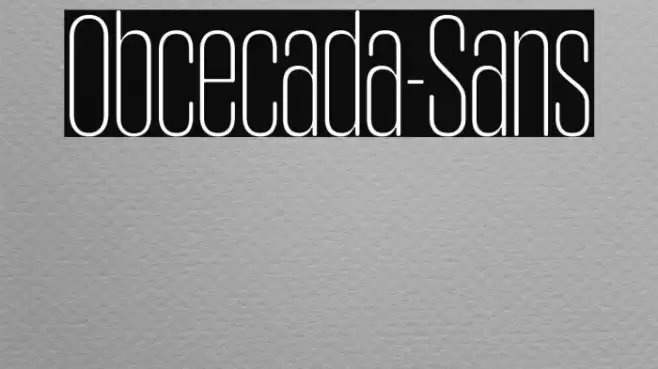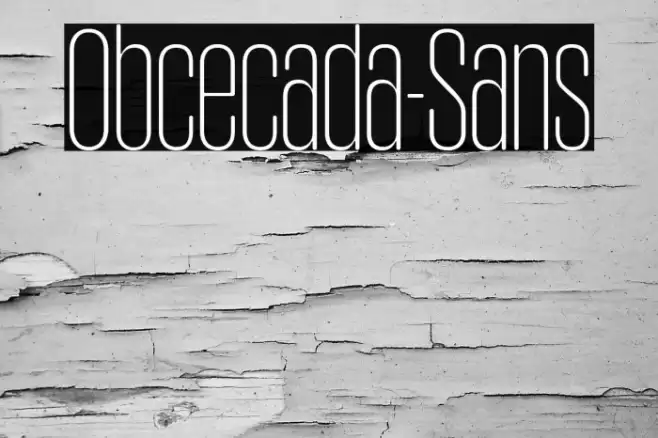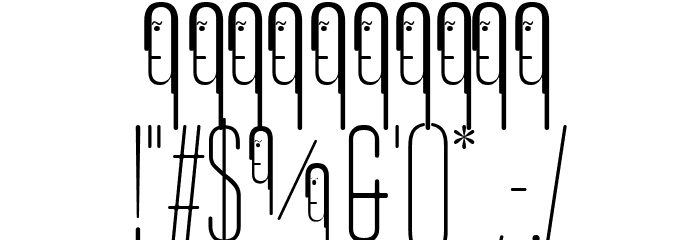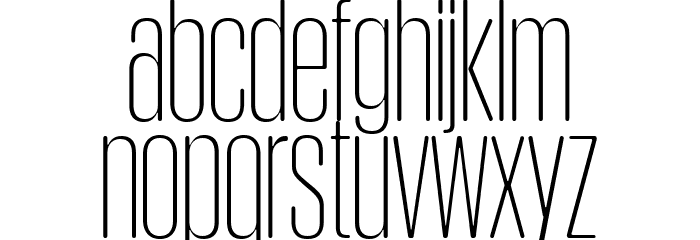
Obcecada-Sans Font
Obcecada-Sans Description
This font features a modern and sleek design with tall, narrow letterforms that give it a distinctive and elegant appearance. The characters are uniformly thin, contributing to a clean and minimalist aesthetic. The uppercase and lowercase letters maintain a consistent height, enhancing readability while preserving a unique style. The numerals and special characters are designed to match the overall slim and elongated look, ensuring a cohesive appearance across all text. This font's simplicity and sophistication make it suitable for a variety of design applications.
A modern, sleek font with tall, narrow letterforms and a minimalist aesthetic from Uncategorized fonts.
- Proposed Projects: Ideal for fashion magazines, branding, high-end product packaging, and modern web design.